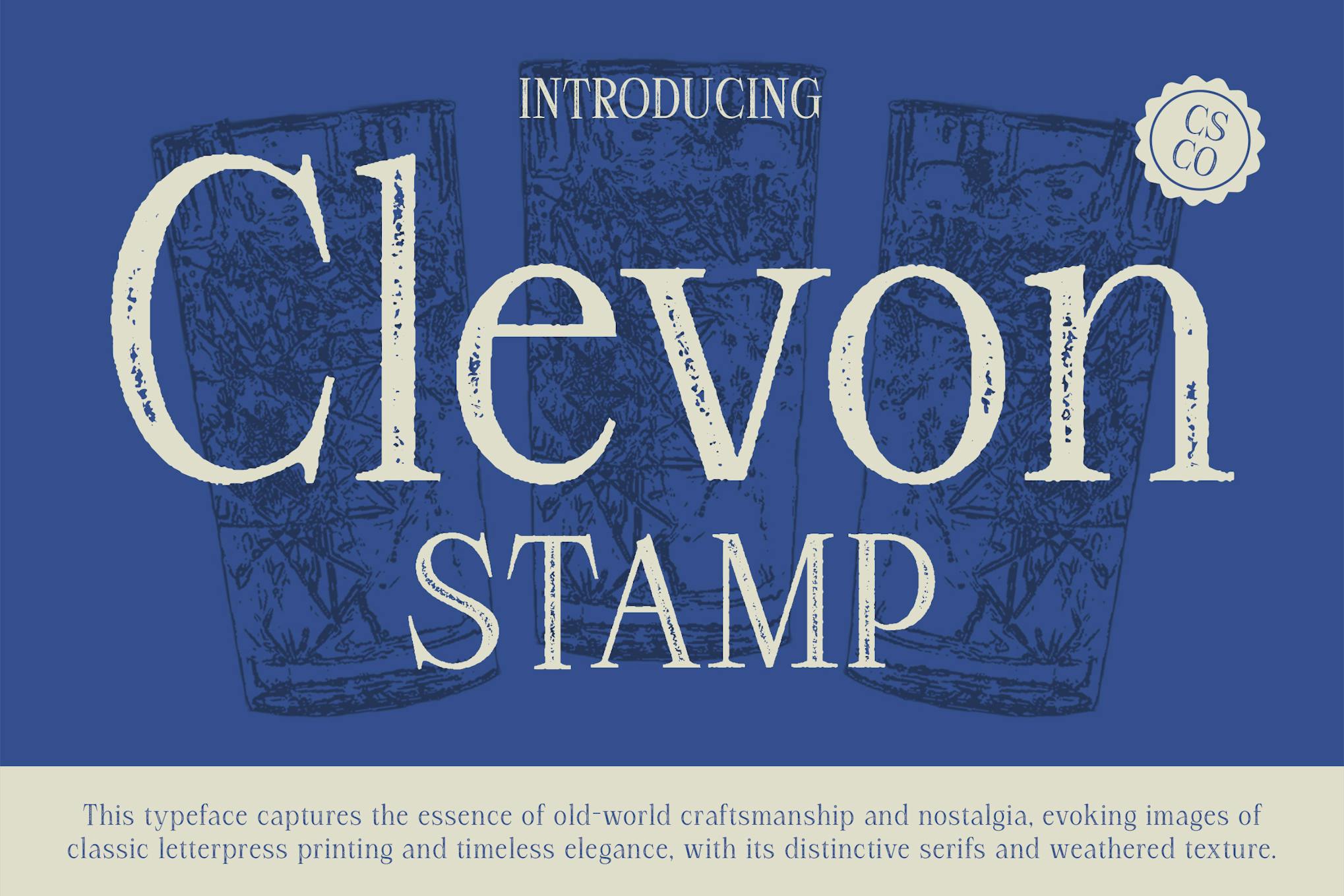
Clevon Stamp Font
Perfect for vintage branding, posters, packaging, logos, social media posts, and product labels.
The Clevon Stamp Font excites designers with its rugged, authentic stamp-like texture that adds a bold, distressed character to any creative project.
The Clevon Stamp Font Free Download is a unique typeface crafted to bring a vintage, handcrafted feel to your designs. Its textured, rough edges mimic the look of old rubber stamps, making it ideal for projects that demand authenticity and a tactile aesthetic. Whether you’re designing posters, product packaging, or branding materials, Clevon Stamp delivers a powerful visual impact.
One of the key strengths of Clevon Stamp Font is its distinctive stamped texture combined with clear readability. Despite its rough appearance, it remains effective for headlines and display text, ensuring your message comes through strong and loud.
In branding, Clevon Stamp conveys ruggedness, reliability, and vintage charm. It pairs beautifully with earthy tones, textured backgrounds, and classic design elements, helping brands build a nostalgic yet bold identity.
For digital projects, this font enhances website headers, social media graphics, and promotional content with its vintage stamped style. Its authentic look ensures your digital presence feels genuine and memorable.